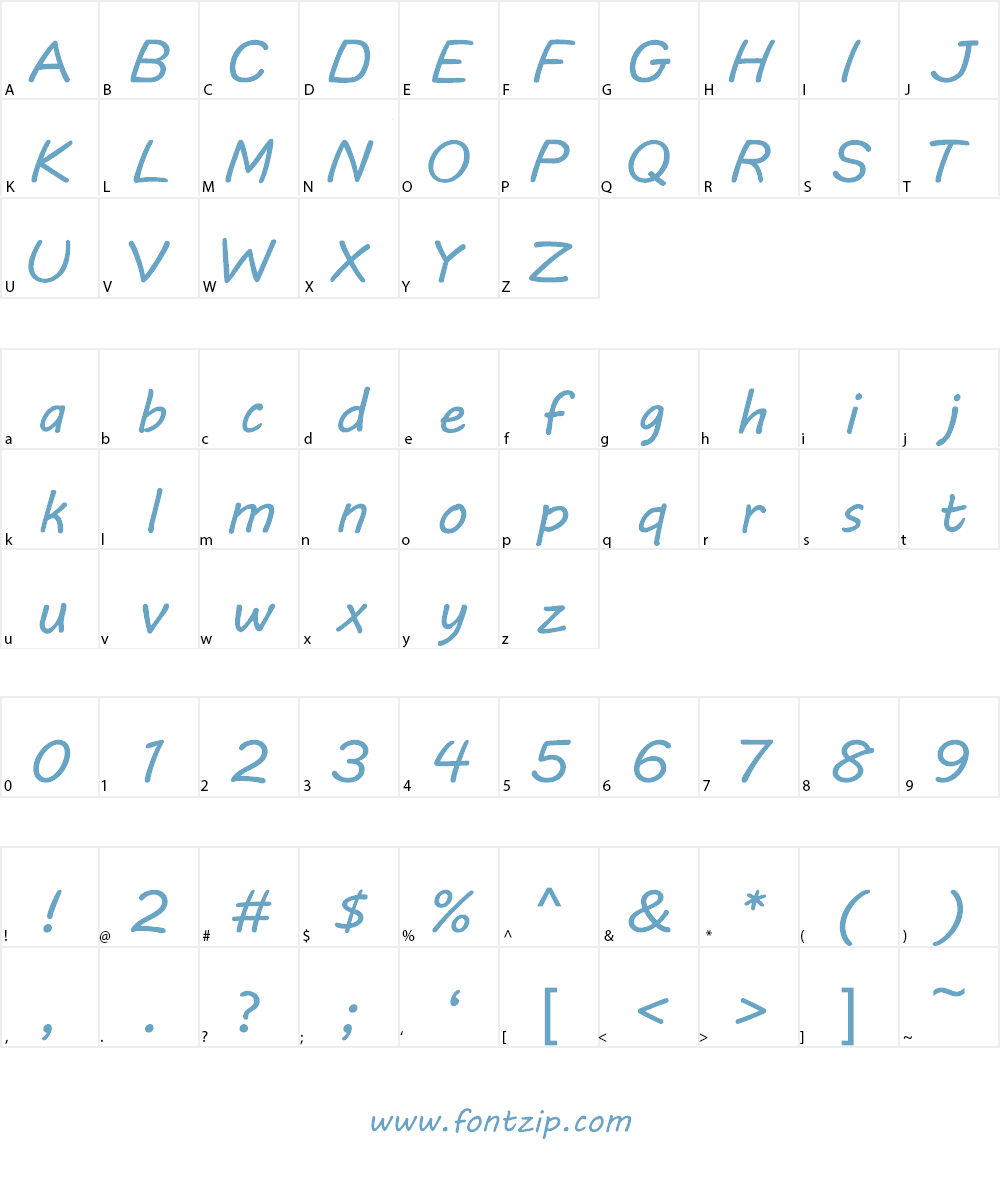
Daniel Lyons requested me to do this, so here's the lowercase version of DLE Comic, which is really an edited version of MV Boli. (at least, i think.)